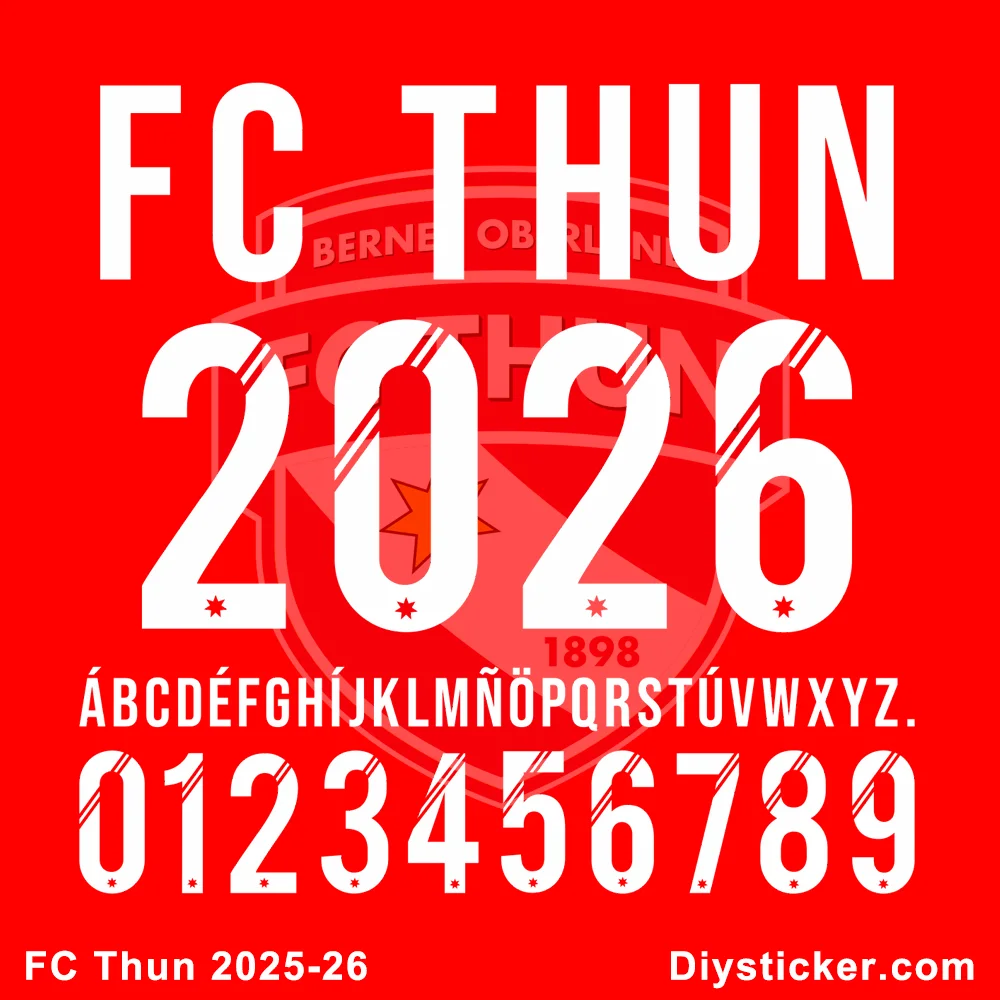
Capture the historic spirit of Swiss football with the official FC Thun 2025-26 Font. This is the authentic typeface used by the legendary Bernese Oberland club, featuring its founding year of 1898. Designed for the new season, this font is essential for every FC Thun supporter and designer.